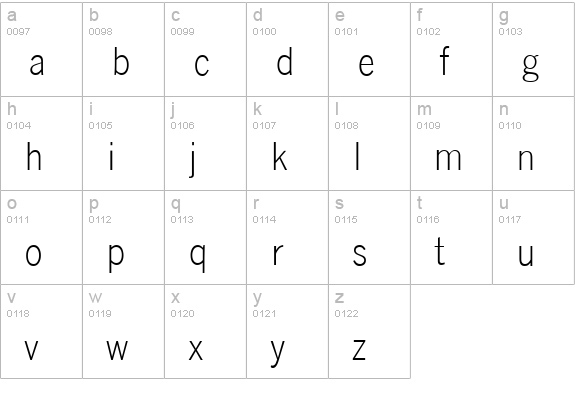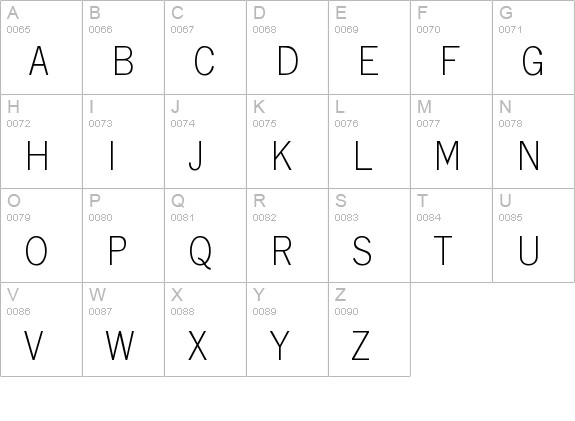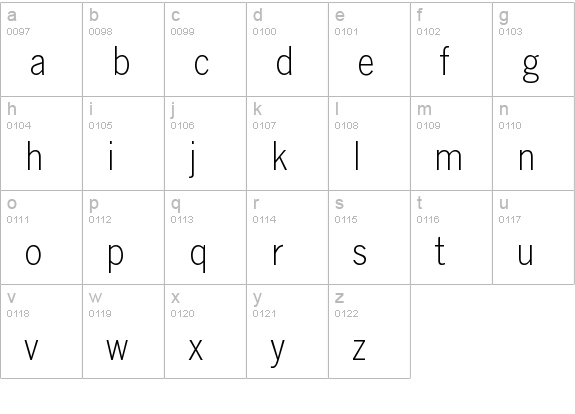
L730-Sans-Regular Font Details
L730-Sans-Regular is the standard, neutral variant in the L730 typeface family \xE2\x80\x94 well suited to general body text, paragraphs, and standard typographic work.
L730-Sans-Regular font is a modern and versatile typeface that exudes simplicity and elegance. With its clean lines and balanced proportions, this font is perfect for a wide range of design projects, from branding to editorial design. Its legibility and timeless appeal make it a popular choice for designers looking for a reliable and stylish font. What makes L730-Sans-Regular font even more appealing is that it is available for free download at FontsMarket.com. This means that you can access this high-quality font without any cost, making it a valuable addition to your font library. Whether you are a professional designer or a hobbyist, L730-Sans-Regular font offers you the opportunity to elevate your projects with its refined aesthetic and versatility. Download L730-Sans-Regular font for free today at FontsMarket.com and explore the endless possibilities this font has to offer for your next design endeavor.